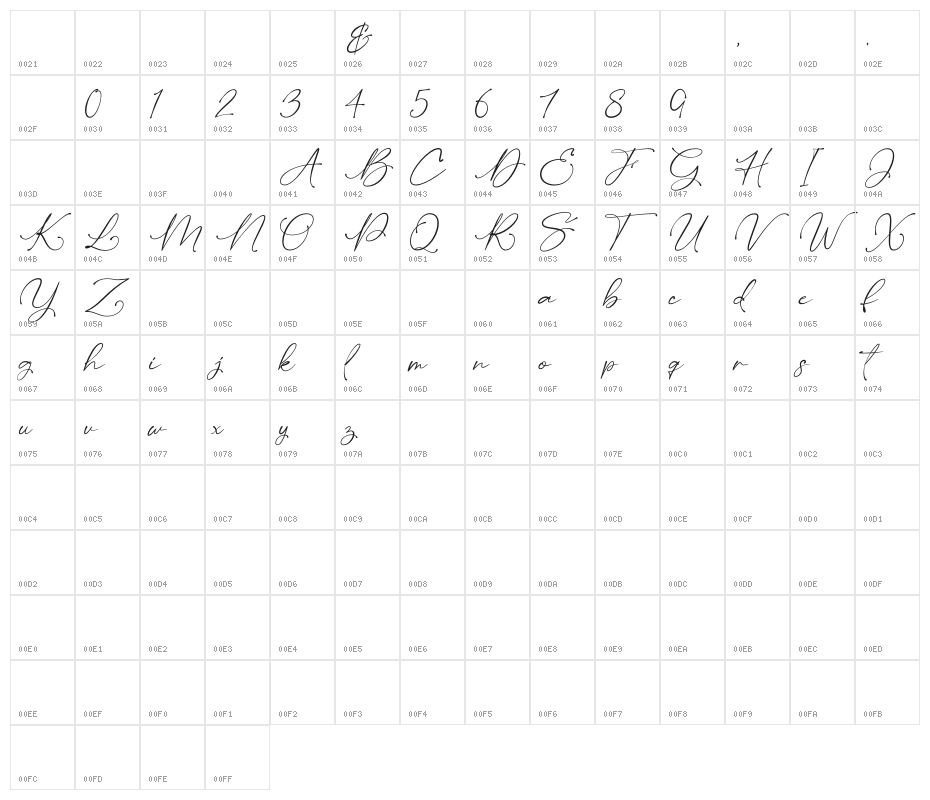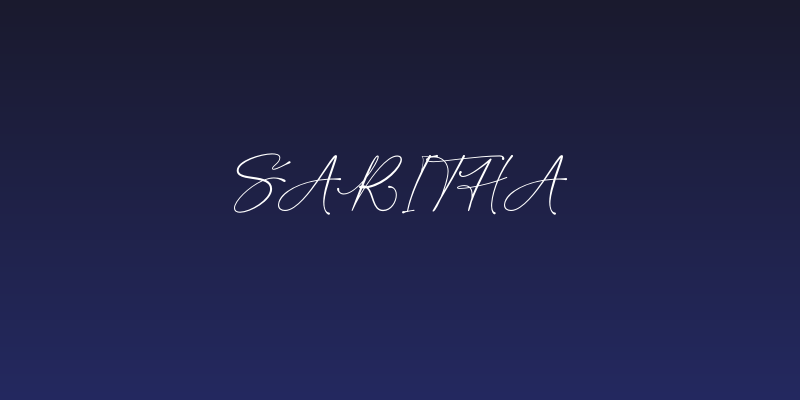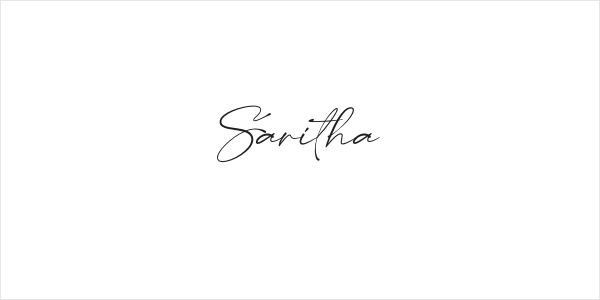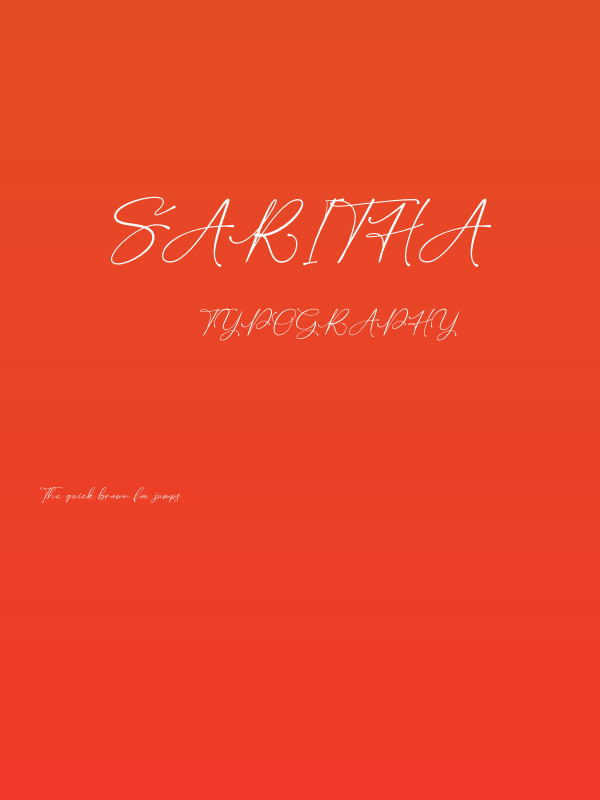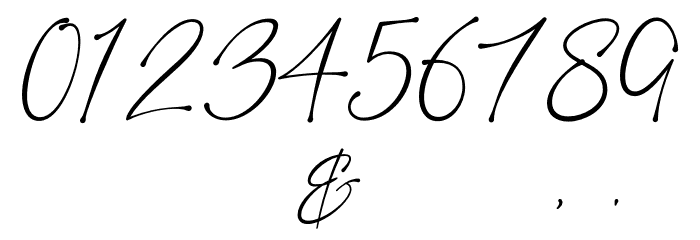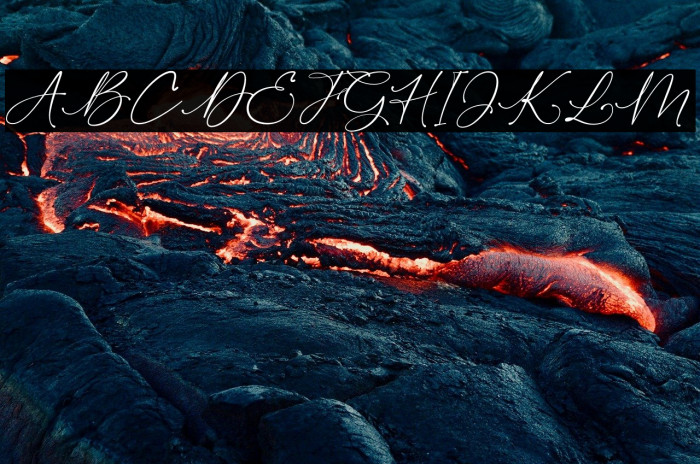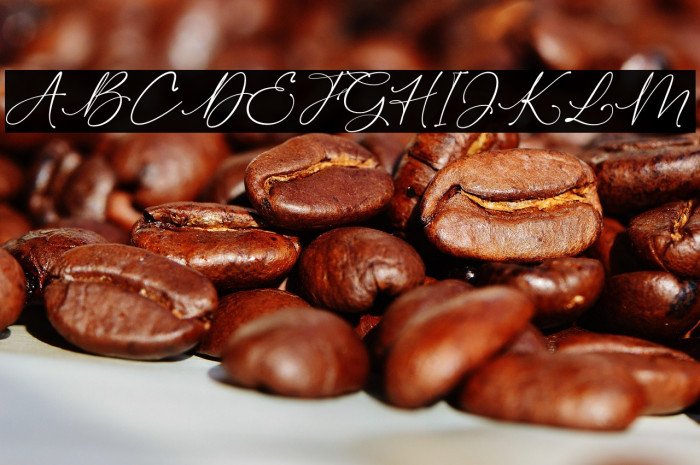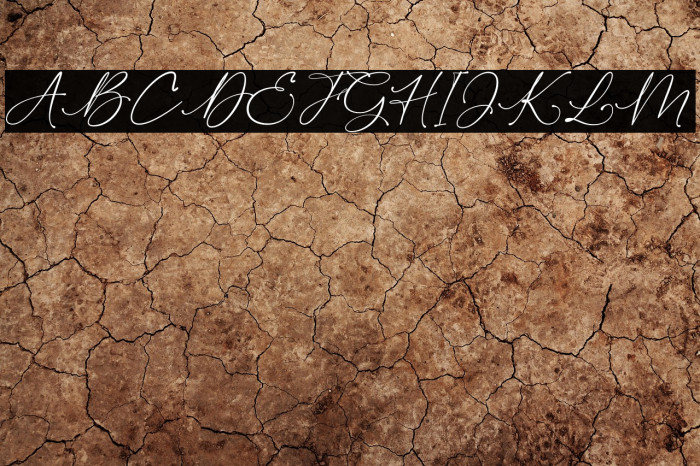
Saritha Font
Saritha Description
This elegant script font features a flowing, cursive style that exudes sophistication and grace. The uppercase letters are characterized by their intricate loops and flourishes, giving them a decorative and artistic appearance. The lowercase letters maintain a consistent fluidity, with smooth connections between each character, enhancing the overall readability. The numerals are designed with a similar flair, maintaining the font's cohesive aesthetic. Special characters like the ampersand and punctuation marks are crafted with the same attention to detail, ensuring they blend seamlessly with the rest of the typeface. The font's delicate strokes and balanced proportions make it ideal for projects that require a touch of elegance and refinement.